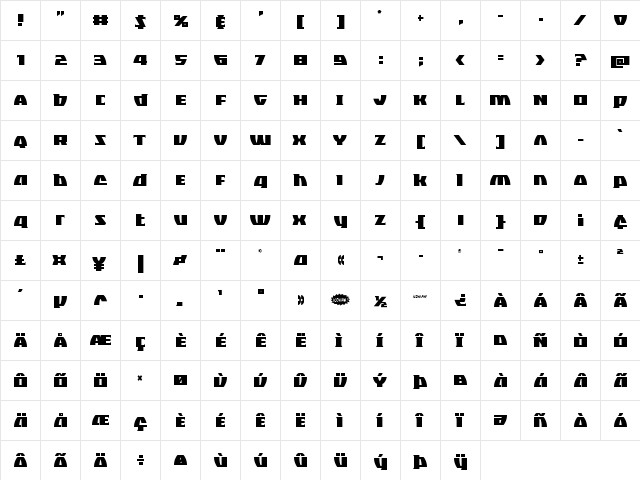
Black Bishop Condensed Condensed
Design Context for Black Bishop Condensed Typeface
Black Bishop Condensed is a composed and adaptable typeface that performs quietly and consistently across a wide range of design contexts. Its narrow stance lets it pack a punch even in space-constrained designs.
Pro Tip: Pair Black Bishop Condensed with a font of contrasting weight or personality to build a more expressive typographic hierarchy.